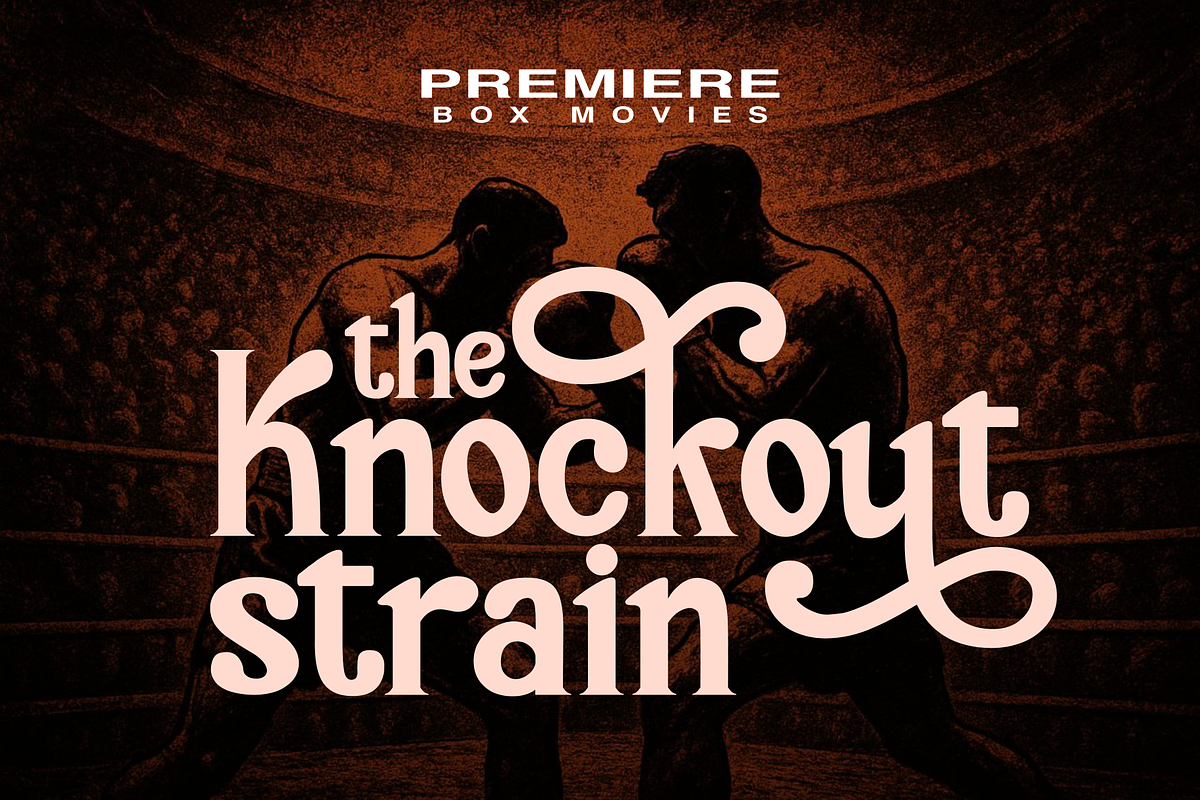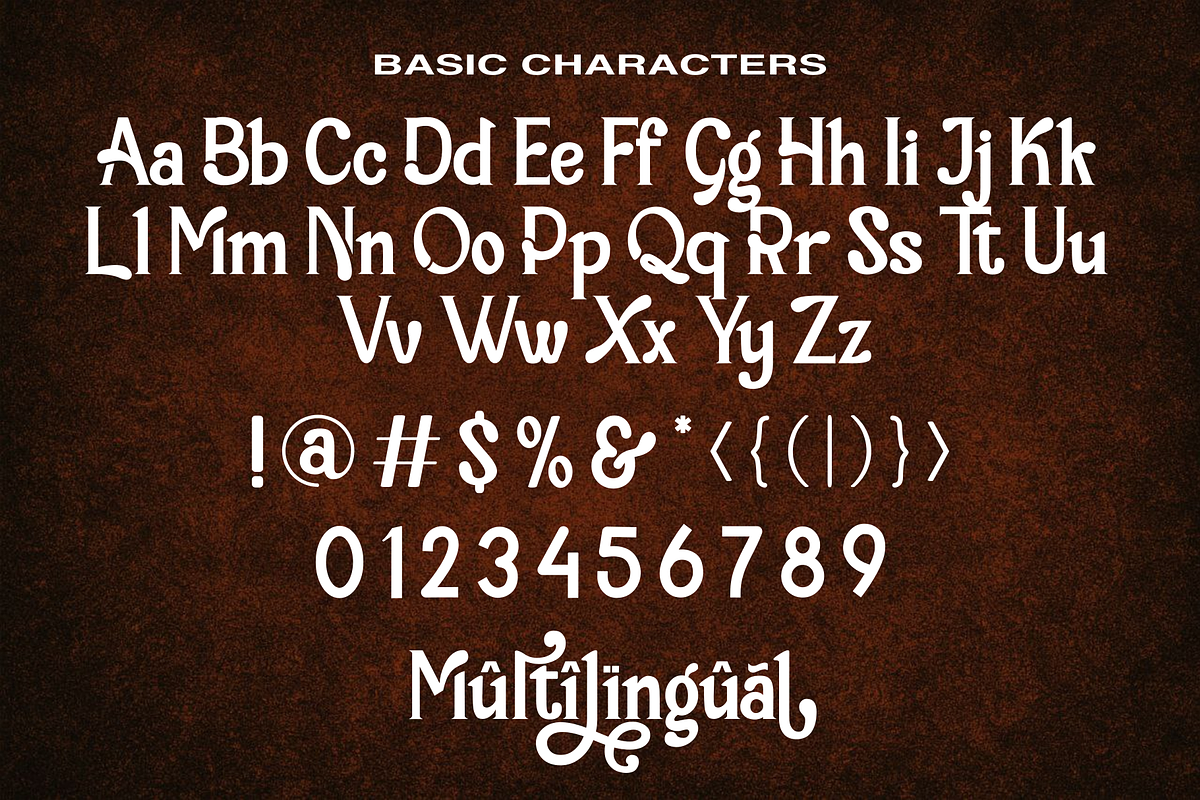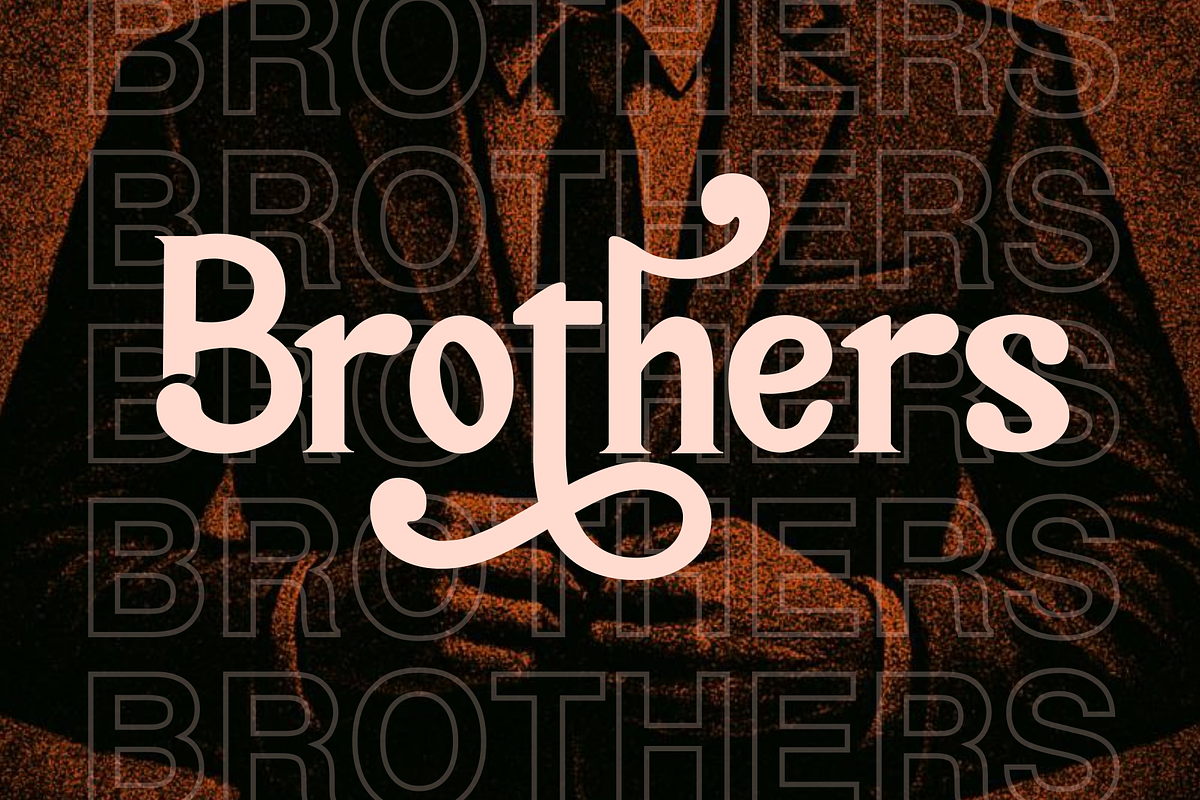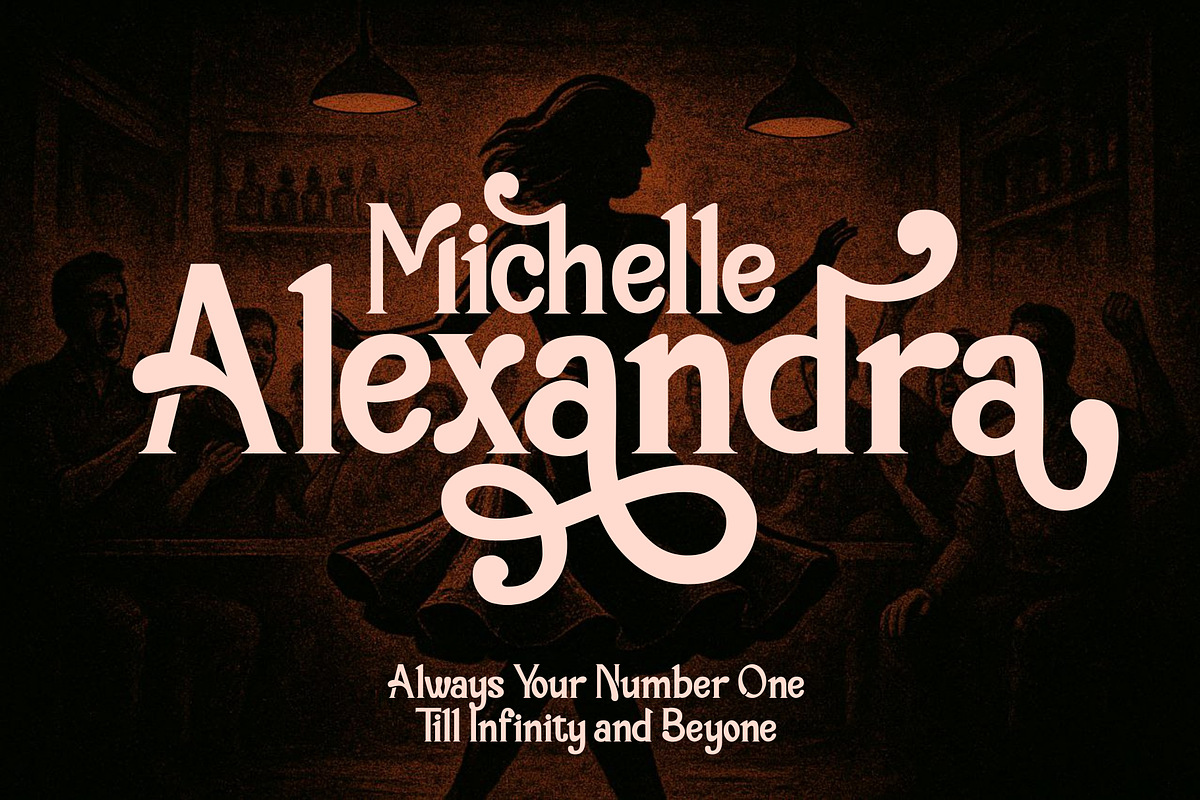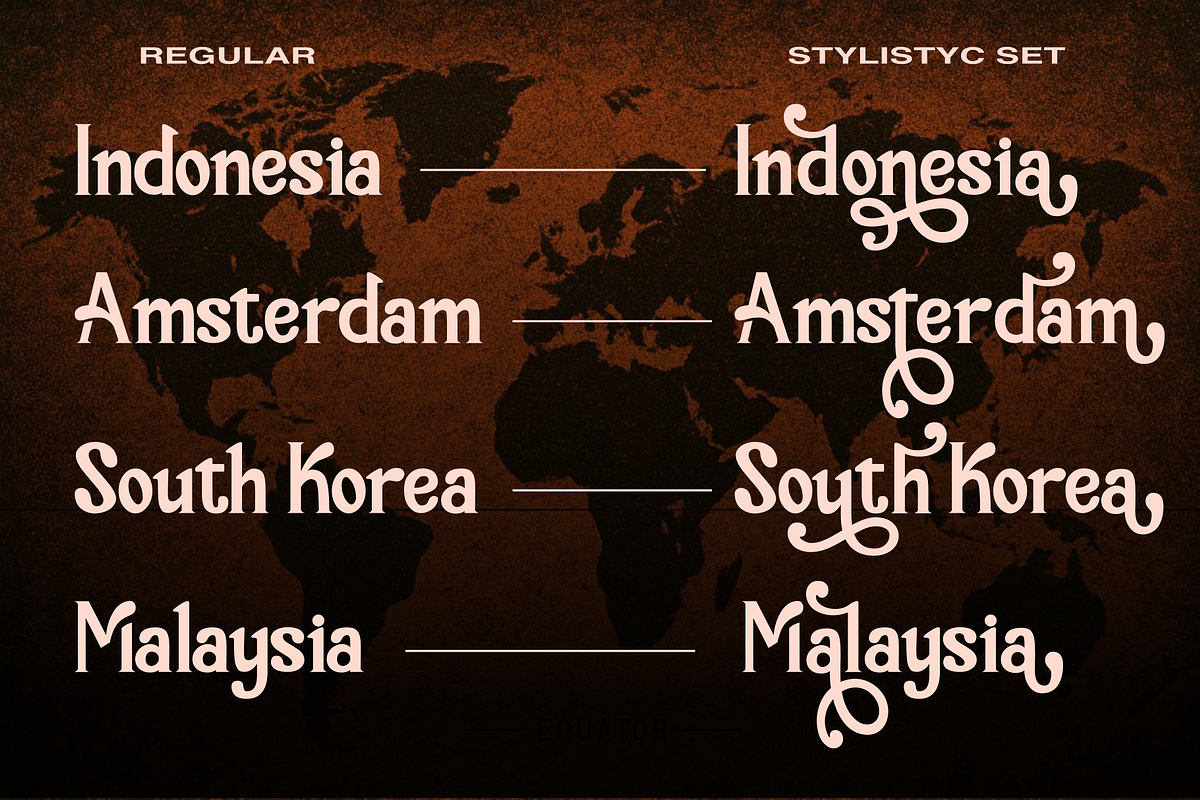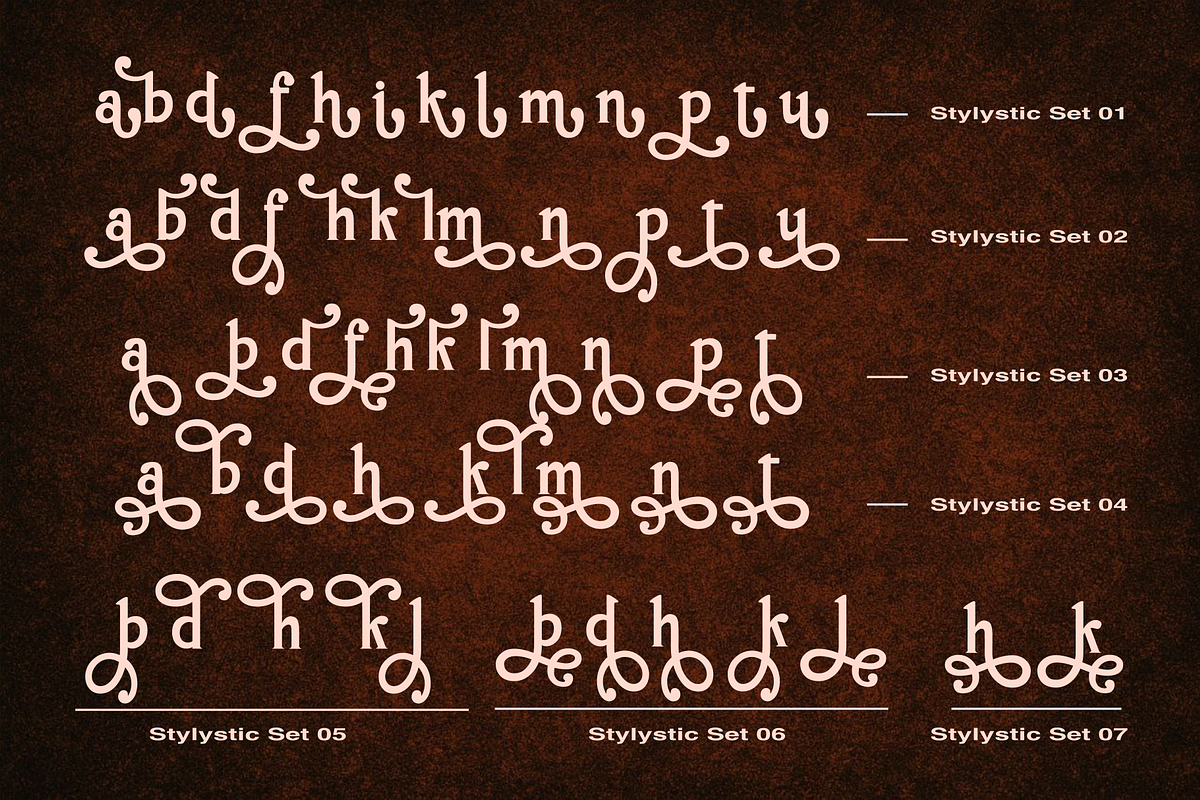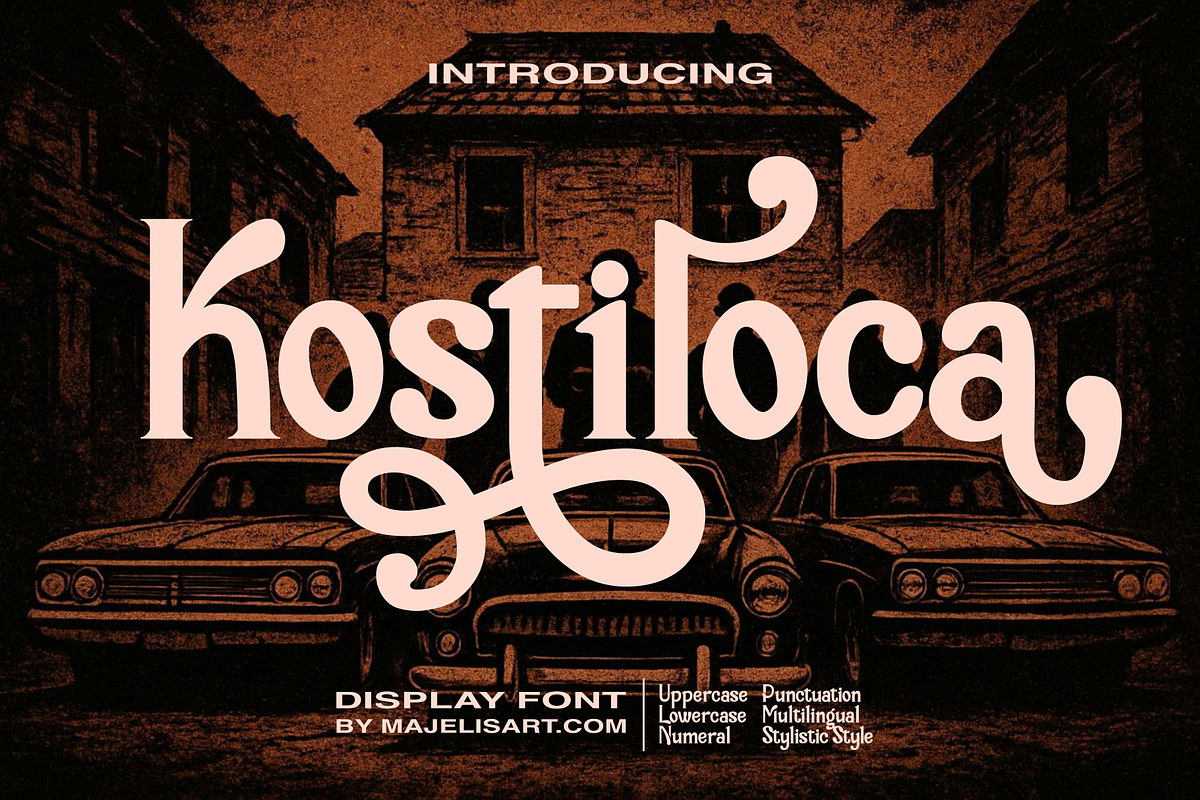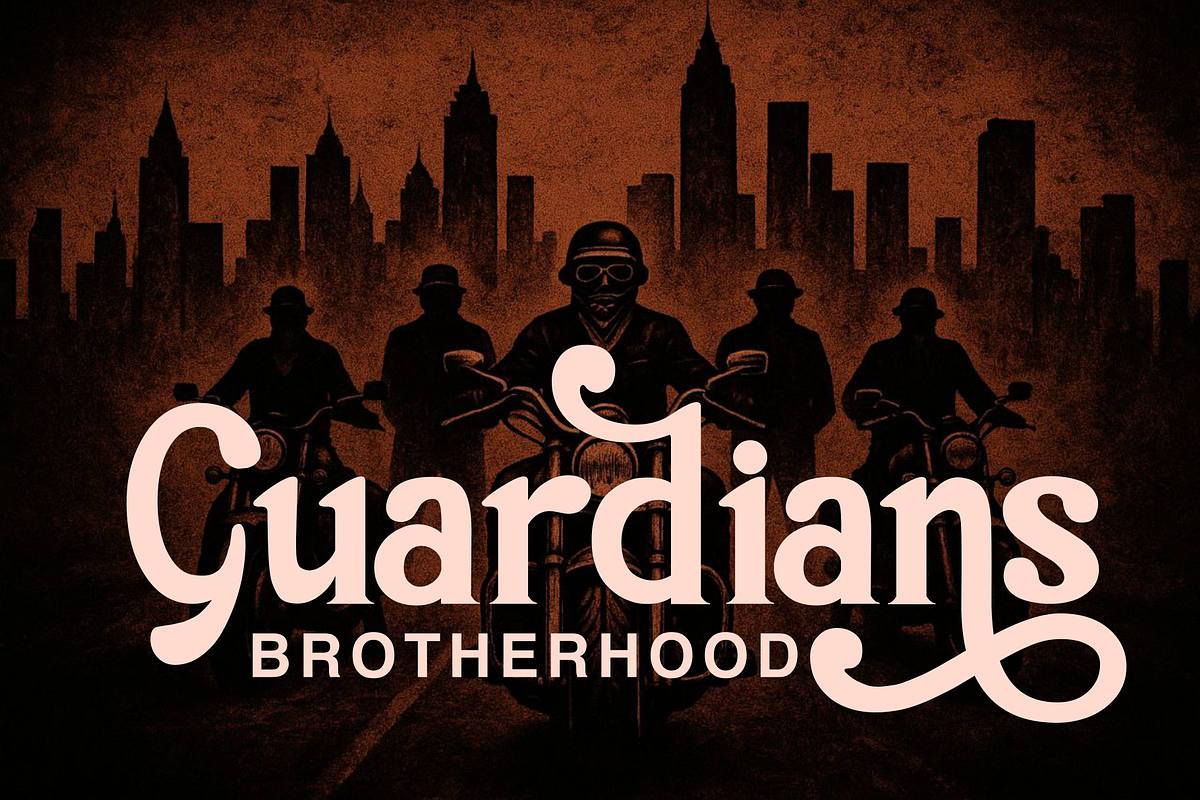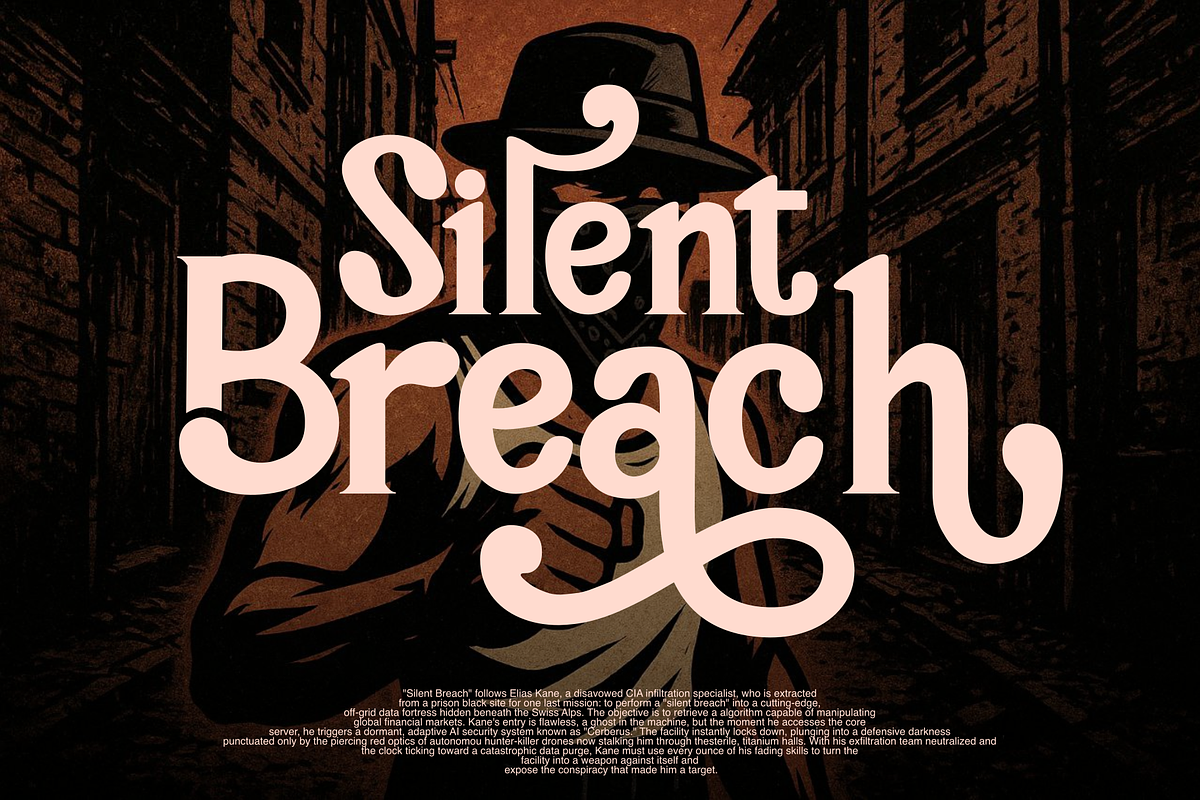
Kostiloca – Elegant Display Font
KOSTILOCA – Elegant Vintage Display Font
Kostiloca is a stylish display font that blends vintage charm with modern elegance. Featuring smooth curves, bold letterforms, and beautifully crafted swashes, this font brings a strong and distinctive personality to any design. Its unique character makes it perfect for creating eye-catching typography with a classy and timeless aesthetic.
Carefully designed with attention to detail, Kostiloca balances decorative elements with readability. The flowing alternates and stylish ligatures add sophistication, giving your text a more dynamic and expressive look.
Stylistic Alternates & Swashes
Elegant Display Style
Perfect for: Kostiloca is highly versatile and works beautifully across a wide range of design projects, including:
Logo design & branding
Packaging design (food, perfume, fashion, etc.)
Poster & flyer design
Social media graphics & Instagram posts
Wedding invitations & stationery
Vintage & retro-themed designs
Apparel design (t-shirts, merchandise)
Book covers & editorial layouts
Signage & labels
Whether you're creating bold branding or refined invitations, Kostiloca adds a sophisticated and artistic touch that instantly elevates your work.